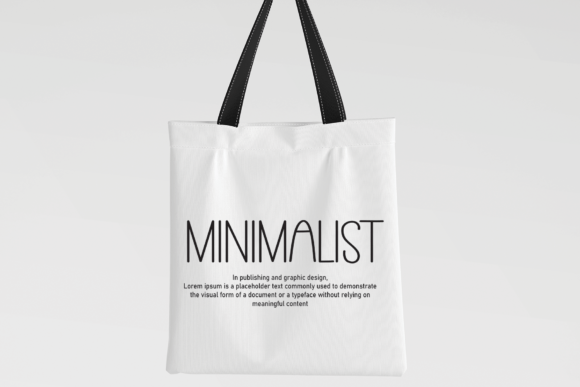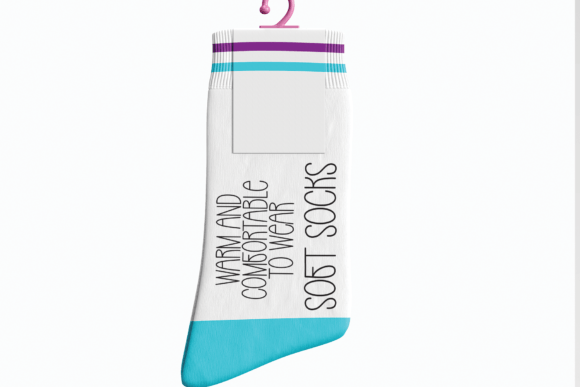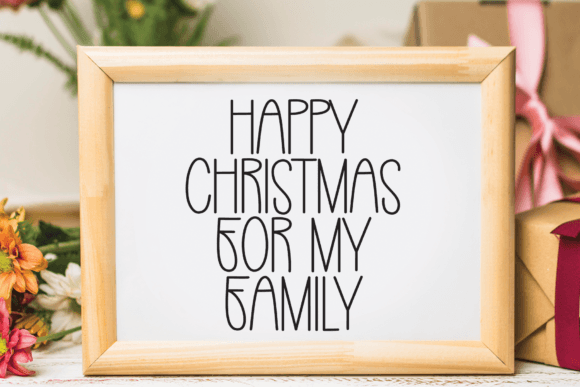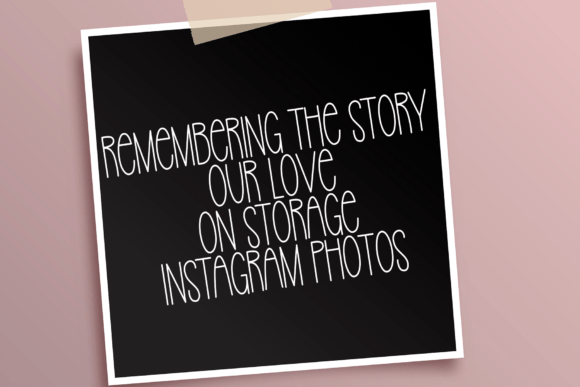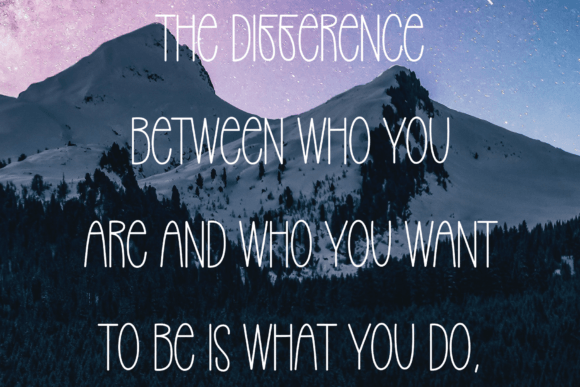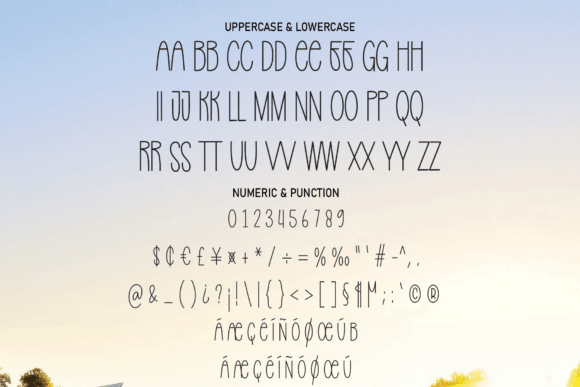
The Perfect Font for Your Creative Projects: Farm Work
I’ll never forget the design project that led me to discover Farm Work’s latest style letters. I was working on a wedding invitation design, and my client had a very specific vision in mind – rustic, elegant, and with a personal touch. As I scrolled through my font library, I realized I needed something fresh and unique. That’s when I stumbled upon Farm Work, and it instantly clicked. The letters were perfect for wall displays, wedding invitations, social media post logos, advertisements, product packaging, product designs, labels, photography, watermarks, and any project that requires beautiful typography.
An Honest Review of Farm Work
- ✨ Beautifully crafted letters with a unique, rustic touch
- ✅ Highly versatile and suitable for various design projects
- ✅ Easy to read and understand, even in smaller font sizes
While Farm Work is an excellent font, there are a few minor limitations to consider:
- ⚠️ Some letters may not work well in very large or very small font sizes
- 🤔 Limited availability of certain special characters or glyphs
Exploring OpenType Features, Glyphs, and Stylistic Alternates
Farm Work offers a range of OpenType features, glyphs, and stylistic alternates that can enhance your designs:
- Access alternative characters and ligatures to add visual interest
- Experiment with different stylistic sets to find the perfect look
- Use glyphs to add unique touches to your designs
The Story Behind Farm Work
Farm Work was designed with the intention of creating a font that captures the essence of rustic elegance. The designer aimed to craft letters that would be both beautiful and versatile, suitable for a wide range of creative projects. Inspired by traditional farm signs and vintage typography, Farm Work brings a unique touch to any design.
Q: What type of projects is Farm Work best suited for?
A: Farm Work is perfect for wall displays, wedding invitations, social media post logos, advertisements, product packaging, product designs, labels, photography, watermarks, and any project that requires beautiful typography.